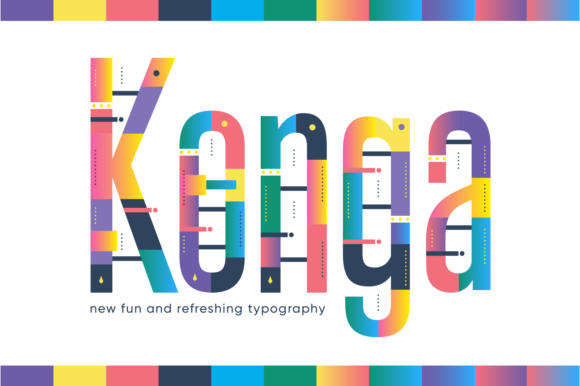
Introducing Konga Font: A Universe of Creativity at Your Fingertips!
Journey into a world of boundless creativity with Konga Font, a captivating display font that will ignite your imagination and transform your designs into masterpieces. Immerse yourself in its vibrant and colorful style, inspired by the wonders of the cosmos.
With Konga Font, let your creativity run wild. Explore the depths of its distinctive characters, each meticulously crafted to evoke a sense of wonder and excitement. Captivating and unique, Konga Font is perfect for creating eye-catching logos, dynamic posters, or mesmerizing social media graphics.
Step into the future with Konga Font's futuristic allure. Its sleek and modern lines evoke a sense of innovation and progress, setting your designs apart from the ordinary. Let your imagination soar as you craft designs that resonate with the ever-evolving digital landscape.
Created by the talented yai.salinas, Konga Font is a testament to the artistry and passion that goes into every character. Its vibrant hues and playful forms are sure to leave a lasting impression, capturing the attention of your audience and leaving them craving for more.